Flawless graphics and smooth animation are not the only main focus of games. The gamers will have an unforgettable experience if the typography assists them well, like in subtitles or tutorials; the fonts must not only be eye-catching but also readable and thematic. So, check out these bold futuristic fonts that are best for games!
23 Bold Futuristic Fonts That Can Impress Gamers
A game designer should be a futurist who can consider other factors than simply relying on a bold font for readability. Otherwise, the gamers will not have the full experience of the games or be confused. Below is a list of fonts to emphasize your design’s gaming experience.
1. Hydration Wavy Display Font
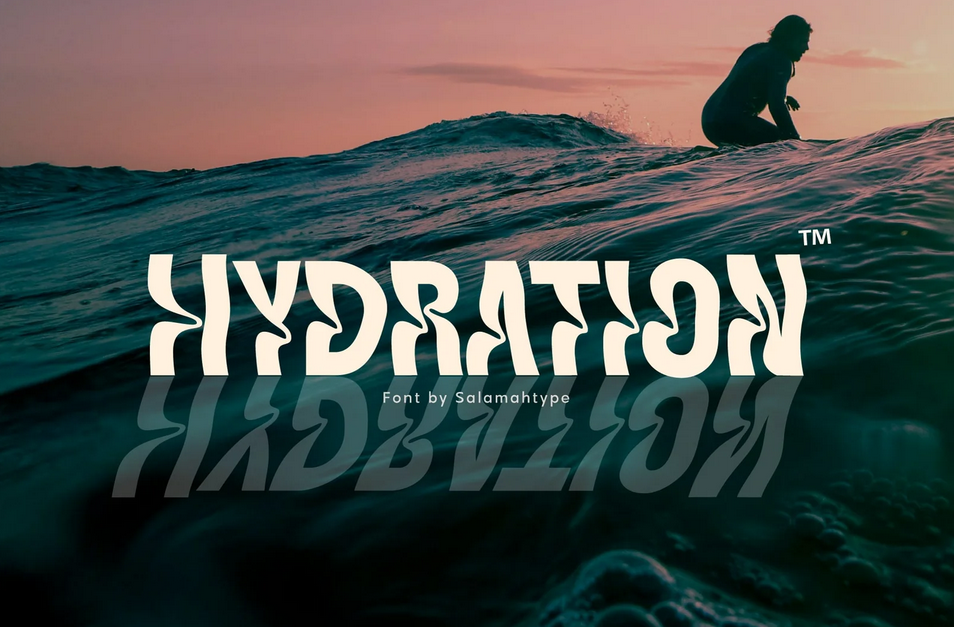
Hydration’s wavy strokes resemble the fluid movement of water: calm yet bold. The font will look exceptional as titles for water-themed and adventurous designs.
2. Ampista – Stylish Modern Font
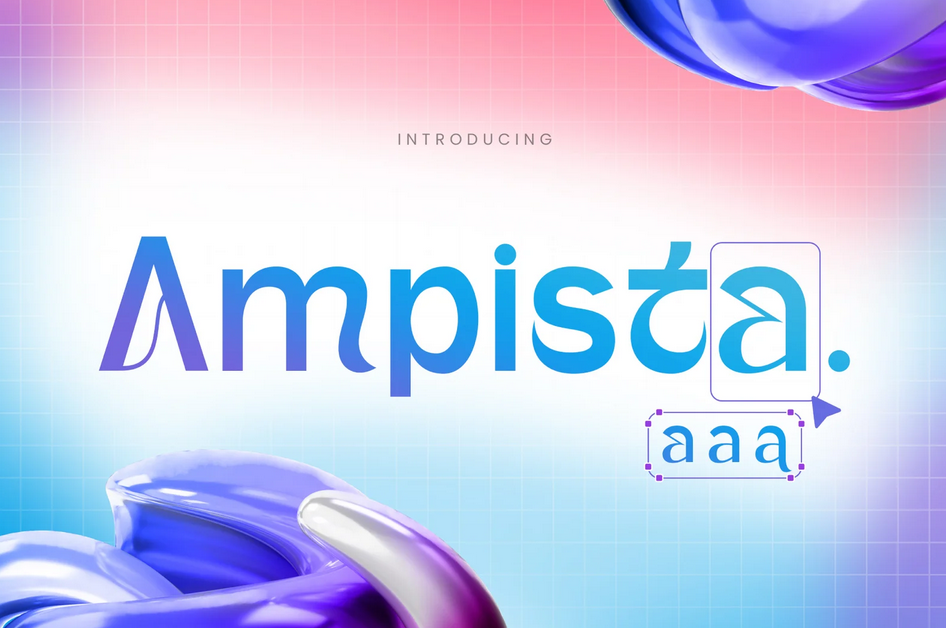
Ampista’s lettering is visually striking with its decorative strokes. They expose the font’s playfulness and originality. Additionally, the font has a bountiful amount of characters with diacritical marks.
3. DROXEN – Bold Futuristic Font
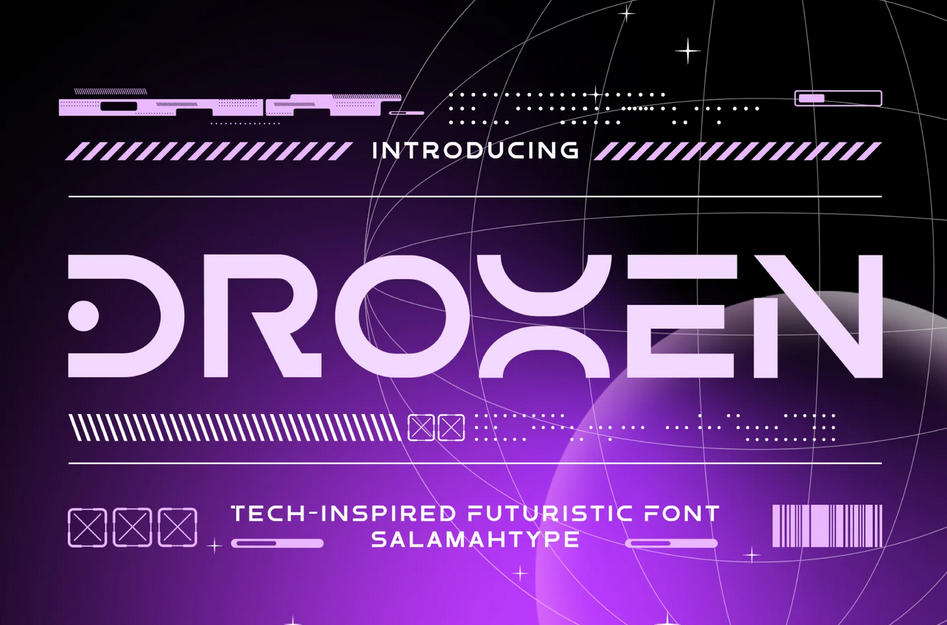
Droxen is a proportional futurist fixed width bold font. It is both neat and astounding as if watching a revolutionary invention.
4. TECWO – Rounded Logo Font
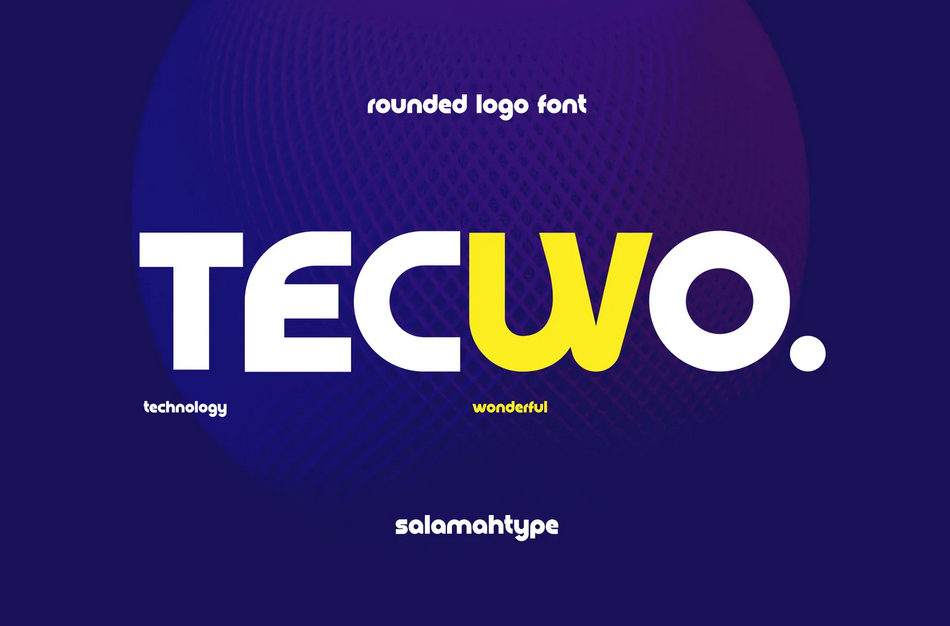
Techwo’s rounded lines of the lettering are the center of attraction. They give both advanced and quirky vibes.
5. Kanisa Lucky – Modern Bold Font
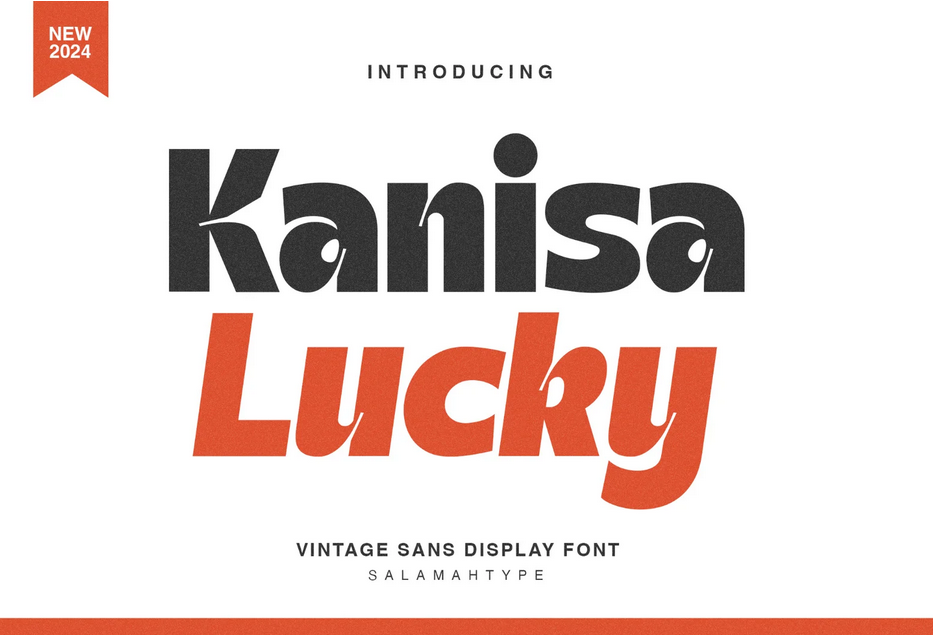
Kanisa Lucky is one of the bold futuristic fonts whose beauty lies in the one-of-a-kind strokes of the ovals, stems, and arches of the font.
6. Maintanker
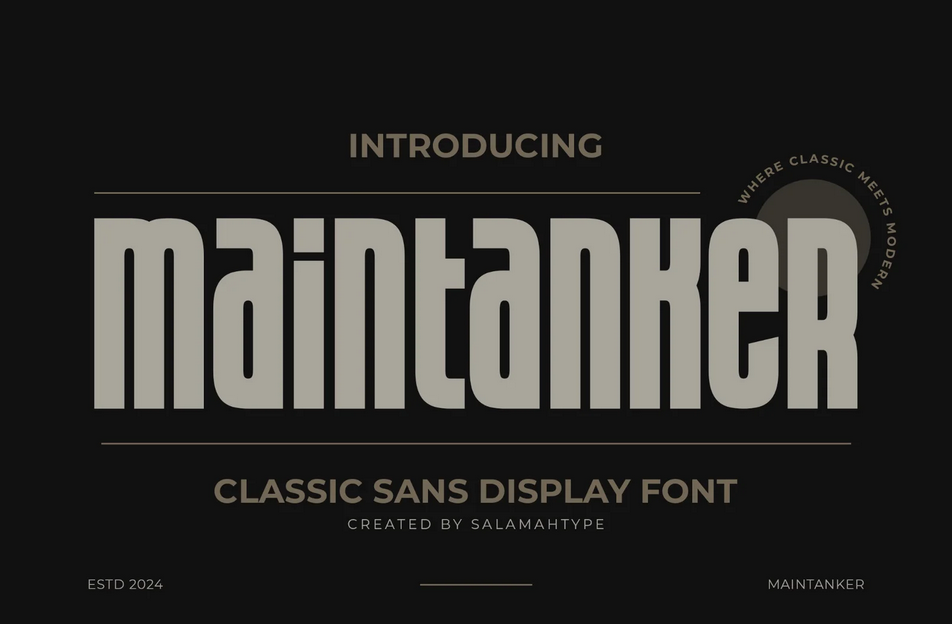
Maintaker holds the classic sans serif font, yet the high density and the proportional point size of the lettering.
7. Lonedruida – Stylish Slim Font
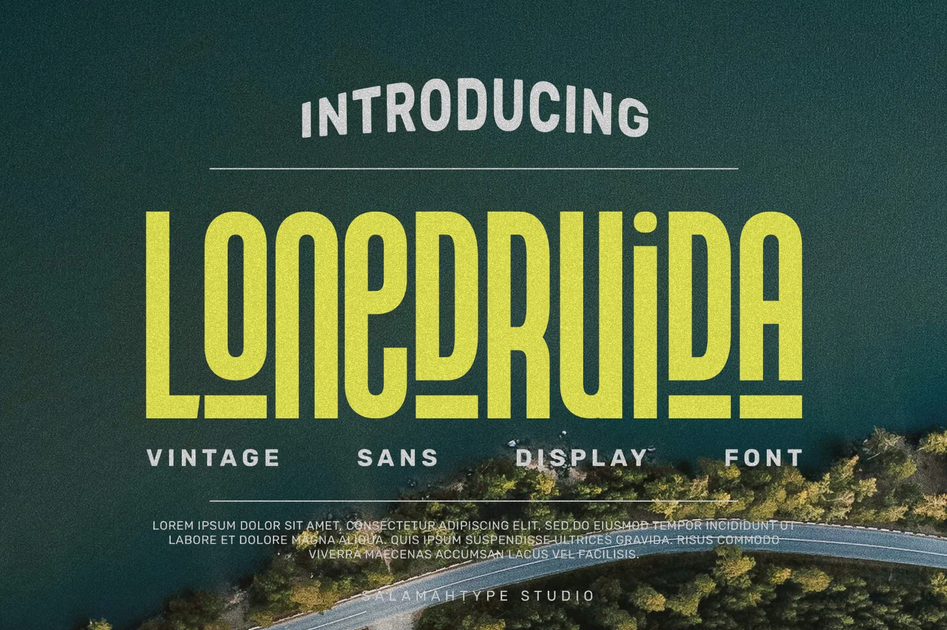
The most eye-catching part is the embellishment in the form of underlines, which enhances the boldness of the condensed and crisp font.
8. Mantey
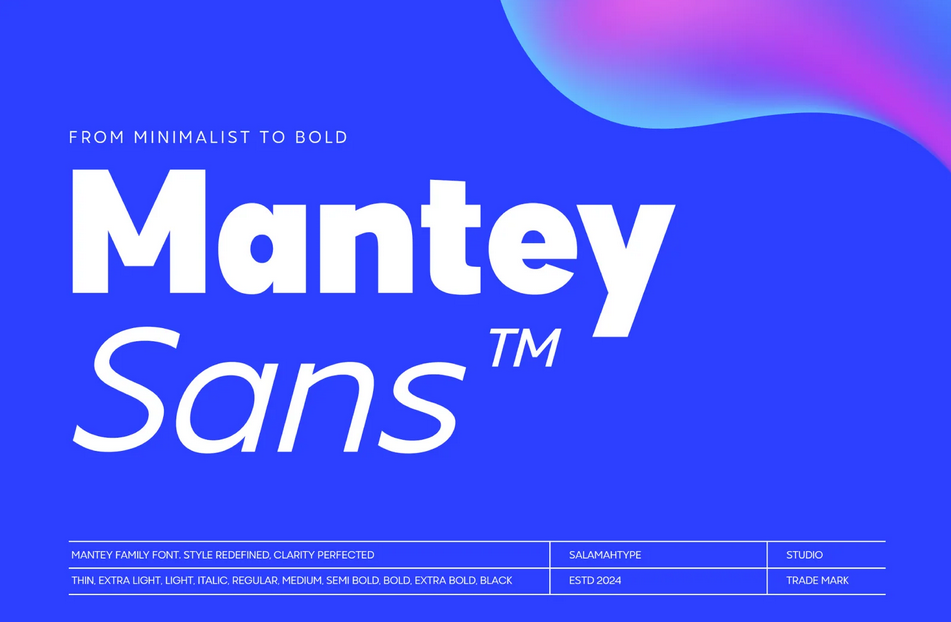
Mantey’s thickness is varied, depending on the design’s purpose. Other than displaying the sans font’s versatility, some letters show the unique descenders of a slab serif.
9. Ranco
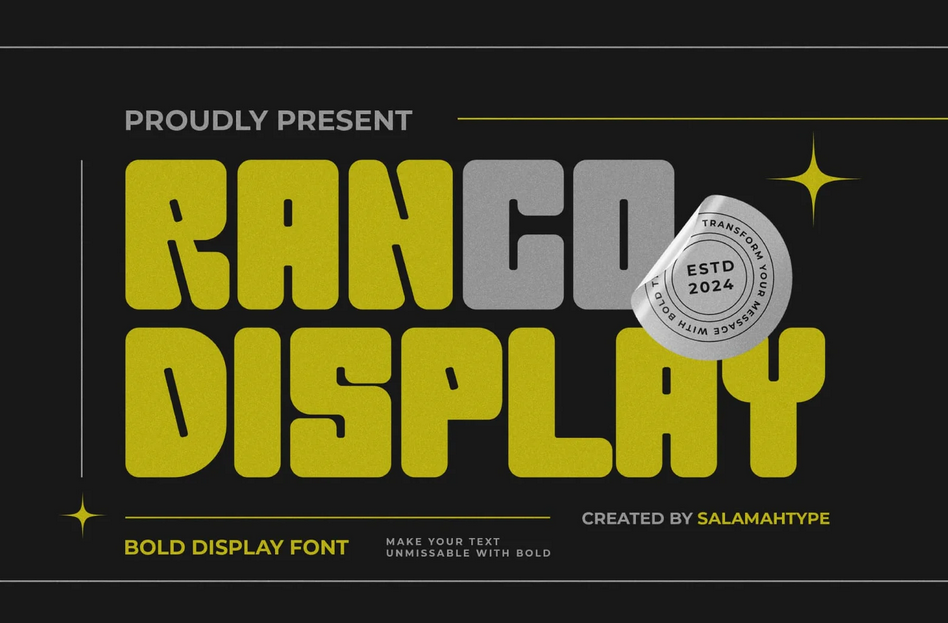
Ranco’s striking heavy-weight and narrow counters give the reminiscence of the classic console games but with a little touch of minimalist flair.
10. Redtrap – Bold Expanded Font
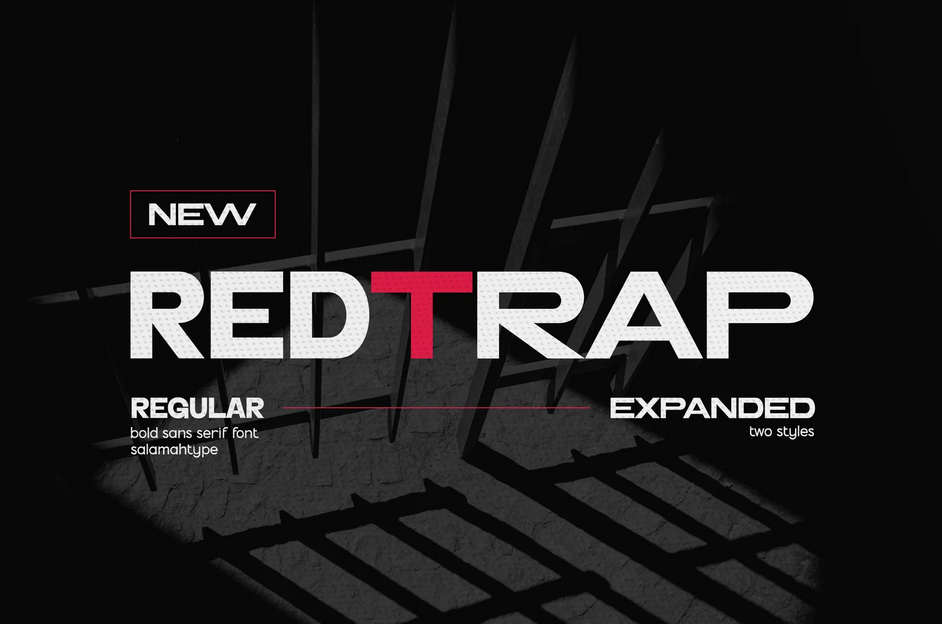
Redtrap’s spacing illustrates the dynamic rhythm of futurist bold font. Along with the boldness, it can accurately build anticipation.
11. Tactico Pro
Tactico Pro’s grunge accent represents the soul that will not be bound. Yet, the san serif’s lettering style still holds the professional charm of the font.
12. Slob Dough – Bold Font
Thick strokes of Slob Dough are constant. They resemble the grotesque serif font but with vertical counters.
13. Rebaston – Display Serif
Rebaston’s letters with stamp textures offer an interesting personality, top with retro-like boldness and eye-catching alternates.
14. Monzane Sans
With consisting only of capital letters, Monzane’s medium-weight steals attention in tech and gaming designs with its versatile simplicity.
15. Rust Core – Display Font
The rusty effect of the Rust Core strengthens the vintage influence. In addition to that, the decoration of the tails and arms makes it one of the bold futuristic fonts that give the font dystopian identity.
16. Black Phantom – Vintage Display
Black Phantom exudes a mysterious yet masculine aura with its four different types of letterings, such as cleaned and textured.
17. Stella Nova Sans – 8 Fonts
Stella Nova’s simple appearance brings intimacy. Thus, it’s a go-to choice suitable for games, tech, or social media, and website designs with minimalist concepts.
18. Jumbox Bold Sans
Another font that presents simplicity is Jumbox. The bold font only consists of uppercase, making it flawless to be used in headlines.
19. Tactico Grunge Font
The versatile and sophisticated letterforms are the charm of Tactico Grunge. Combine its various styles to create stunning text with a sole font.
20. Major Birch – Vintage Logo Font
Major Brich brings your tech design a refreshing touch with vintage and contemporary flair. It has a bold weight with decorative lines and flowy tails.
21. Twinkle Diamond
Twinkle Diamond’s cursive and branches shine like a diamond, the chunky letters offer you that bold vintage tone.
22. Kimburgery Free Font
Kimburgery’s simplicity lies in the simple fluid and contrasting strokes, making it bold in terms of readability.
Want More Options?
Typography should not be overlooked in tech and gaming designs. Gamers will have a more memorable experience and opportunities to dive into the lore of the games. So, you must consider many factors and compare bold futuristic fonts that can enhance the greatness of your designs.